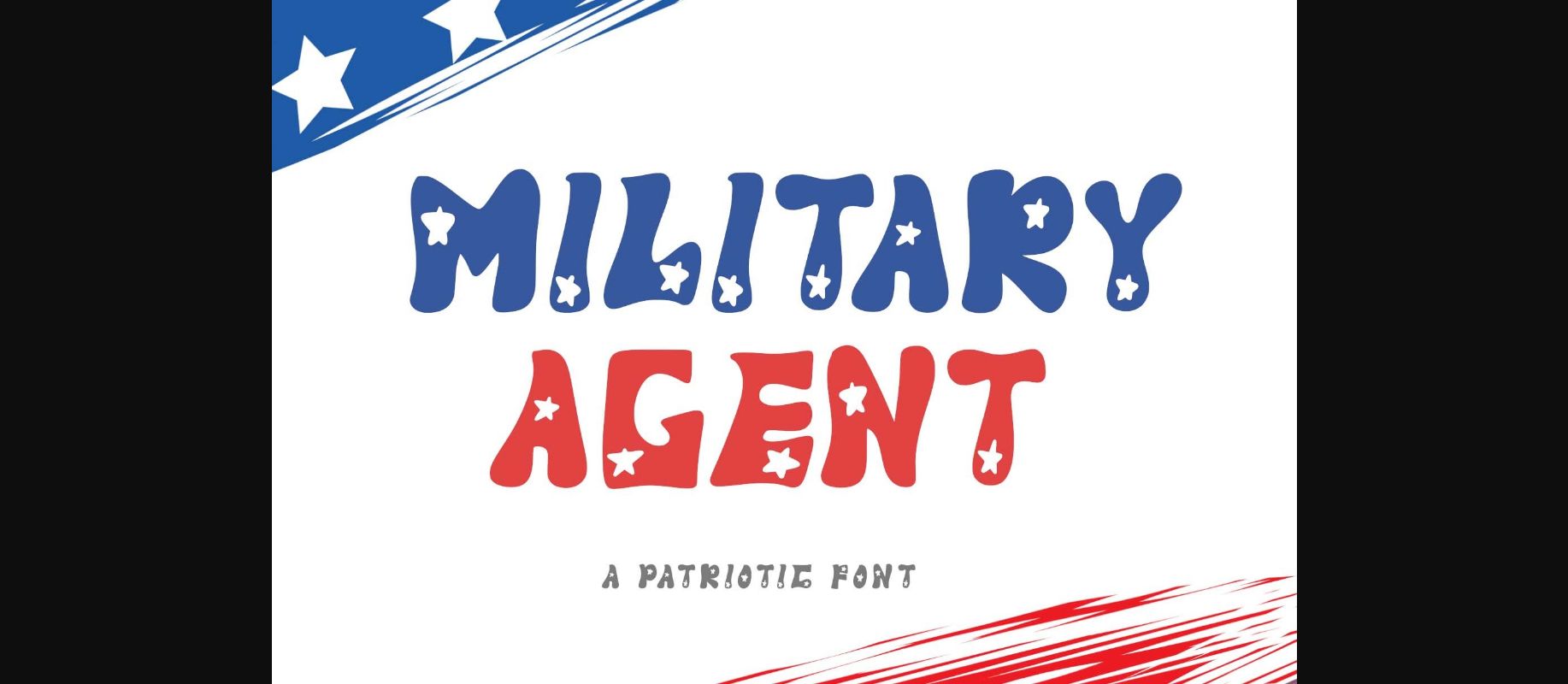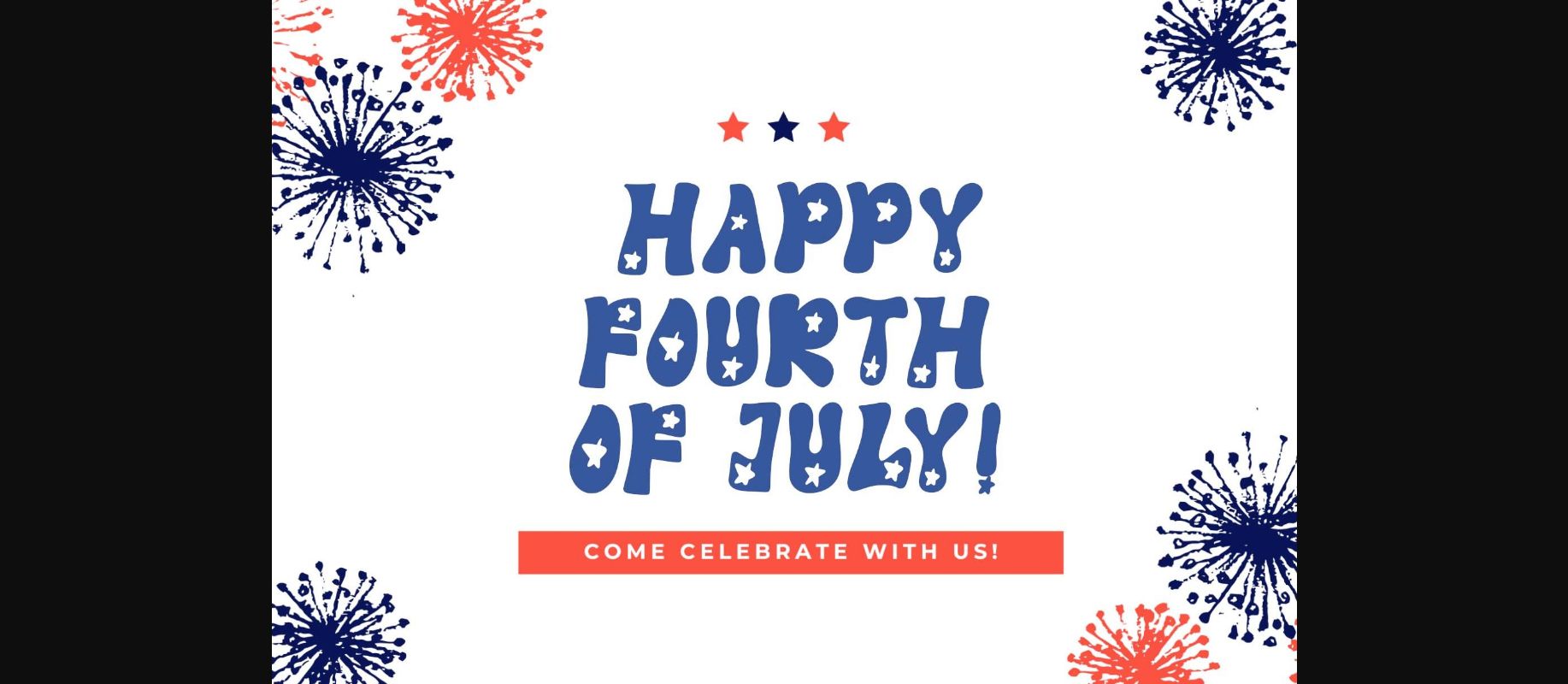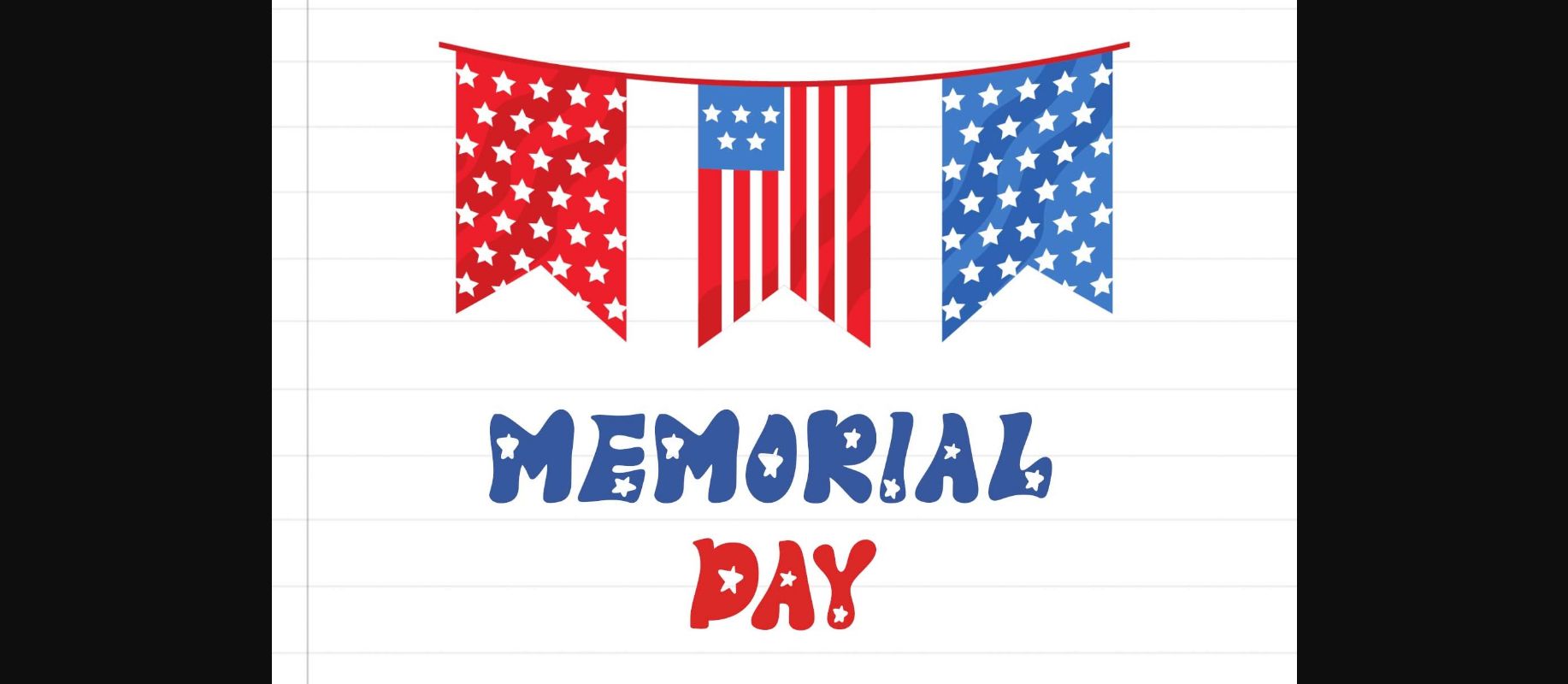
About Military Agent Font
“Military Agent” is a patriot-themed display font. This font is decorated with a star shape on each letter. Equipped with uppercase, lowercase, numerals, punctuation, and multilingual support. Suitable for 4th of July moments, posters, banners, branding, and more.